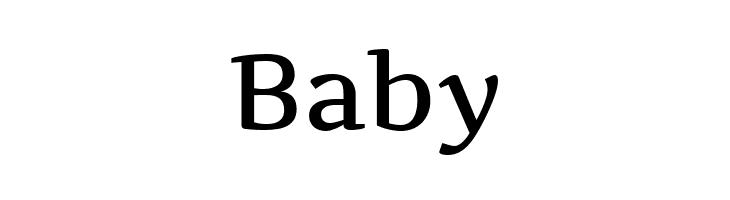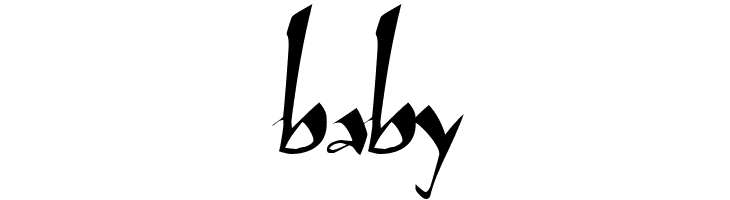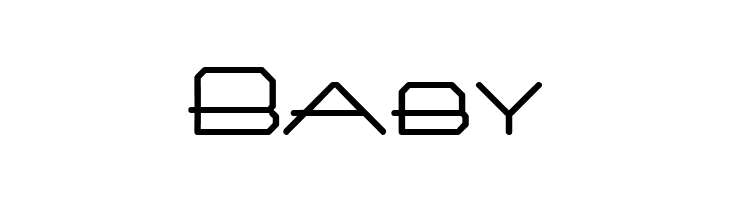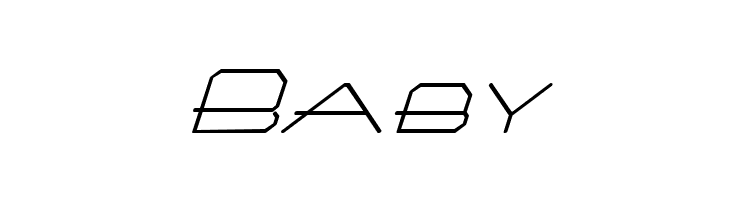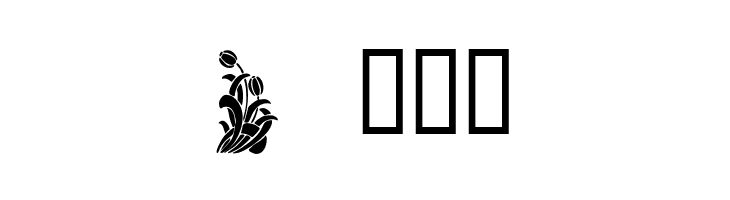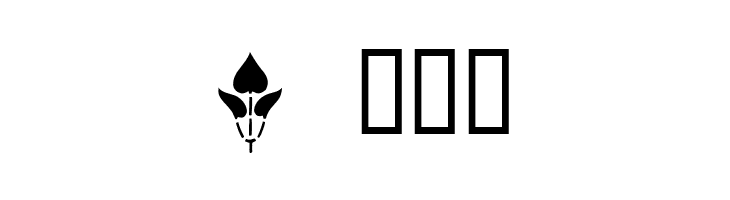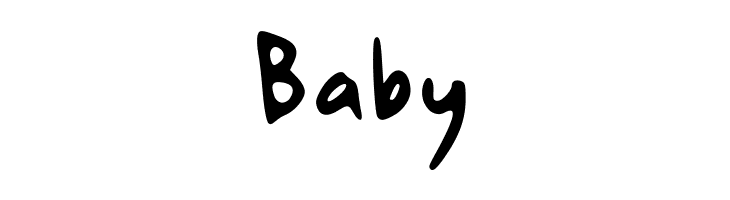
A pictographic display font with ancient and tribal-inspired symbols.
An artistic, illustrative display font with unique drawings for each character.
An artistic, pictorial display font with each character as a unique illustration.
An elegant calligraphic font with flowing, ornate strokes.
A bold, expressive font with sharp, angular strokes and a calligraphic influence.
A modern cursive font with elegant, flowing lines and a slight slant.
A bold, geometric font with strong, modern letterforms.
A modern serif font with elegant curves and balanced proportions.
A graceful and sophisticated script font with flowing, interconnected letters.
A modern, geometric sans-serif font with a clean and sleek design.
A modern, geometric font with clean lines and uniform stroke widths.
An ornate script font with elaborate swashes and flourishes.
A decorative and artistic font with intricate patterns and embellishments.
Hand-drawn, artistic font with abstract sketches and surreal motifs.
A playful, cartoon-themed decorative font with illustrated characters for each glyph.
Illustrative dingbat font with art and artist-themed icons.
Abstract, illustrative font with playful, hand-drawn doodles for each character.
Cartoonish, narrative font with each character depicted as a lively illustration.
Artistic, abstract display font with hand-drawn illustrations and modernist motifs.
A bold, outlined font with geometric shapes and clean lines.
An artistic, brushstroke-style font with a dynamic and expressive appearance.
A decorative, monster-themed illustrated font with playful, cartoonish characters.
A bold, decorative Art Nouveau font with intricate line work and geometric patterns.
A bold, blackletter-inspired font with ornate, angular characters.
A playful, bold handwritten font with a lively and informal style.